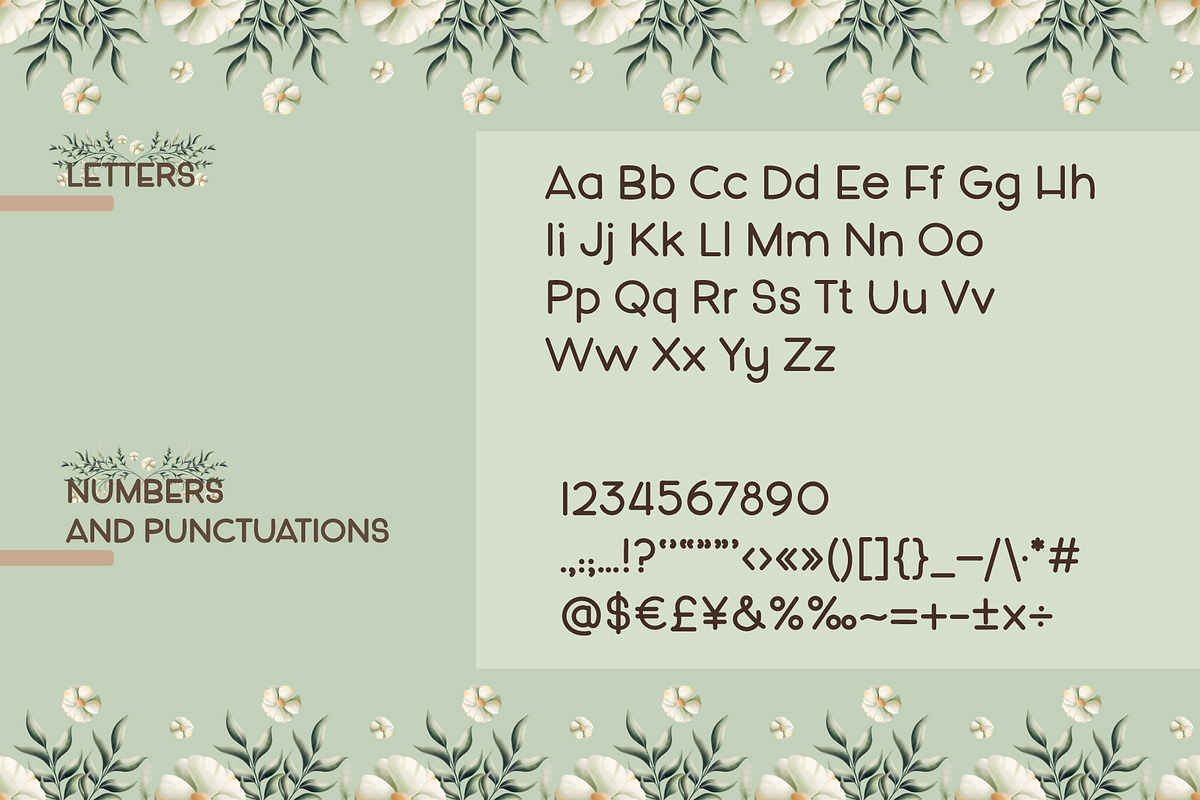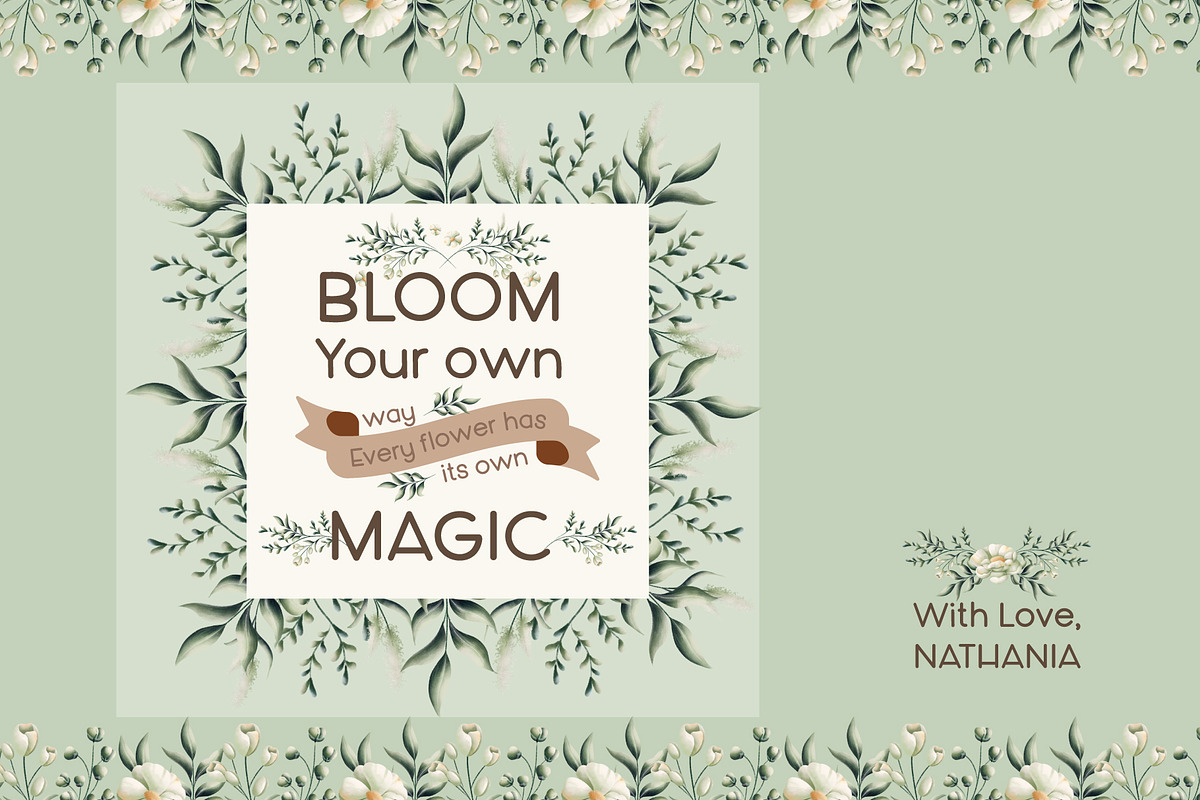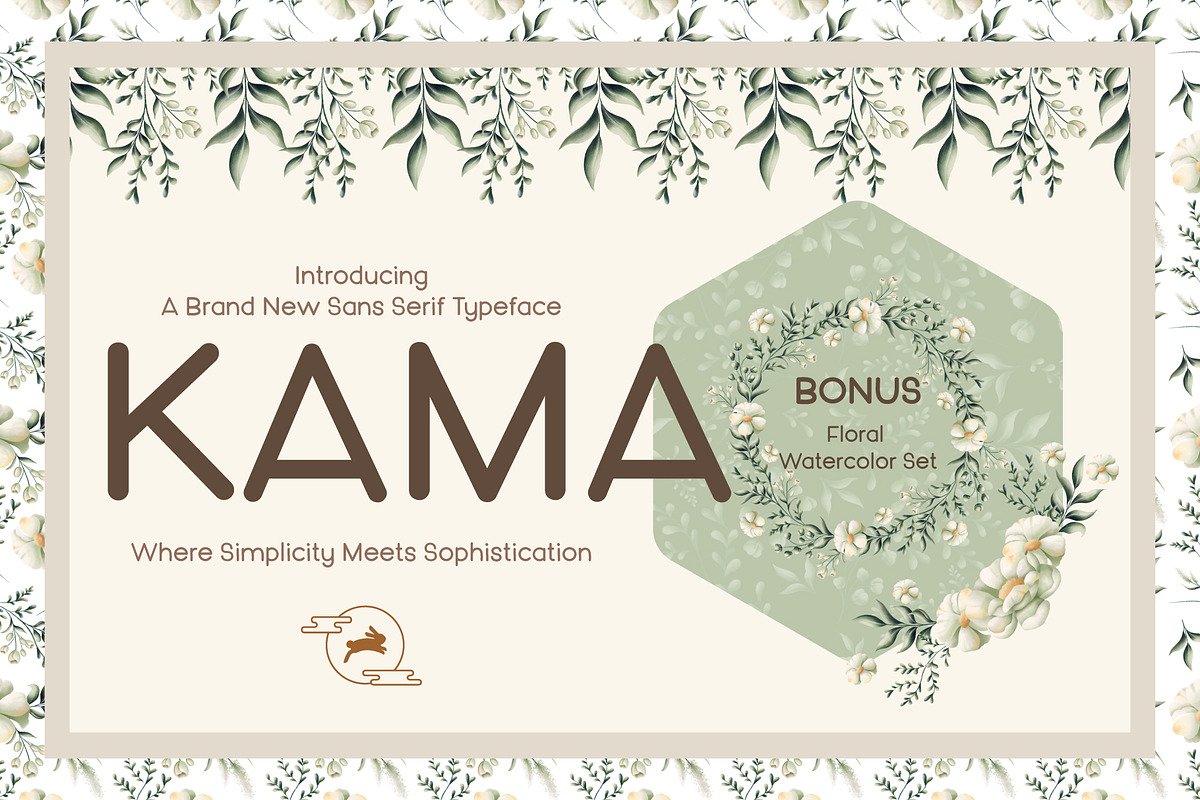
Kama
Kama is a sans serif font.
They are perfect to use for: logos, branding, home decor, signs, mugs, shirts, pantry labels, stickers, greeting cards, posters, social media, planner prints, and etc. Just have a great fun with Kama on your design!
Uppercase letters Lowercase letters Numbers Punctuation Language Support : Currently English Only